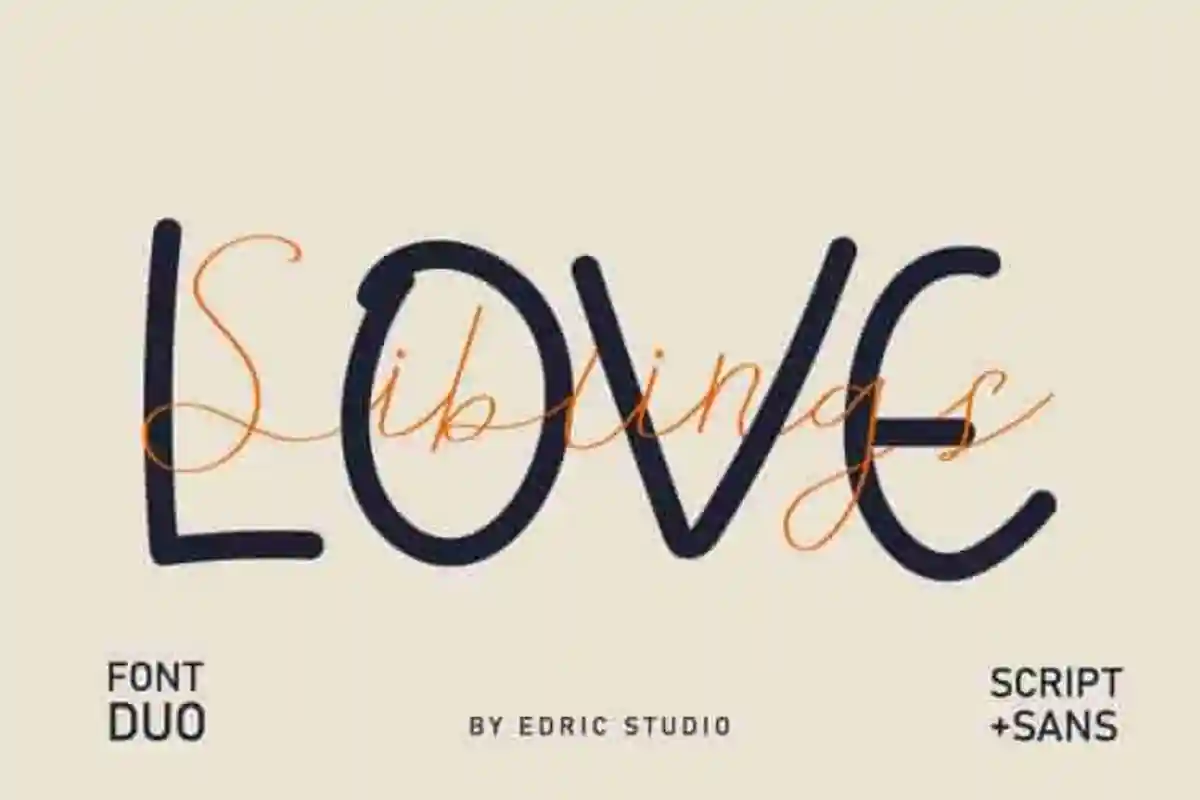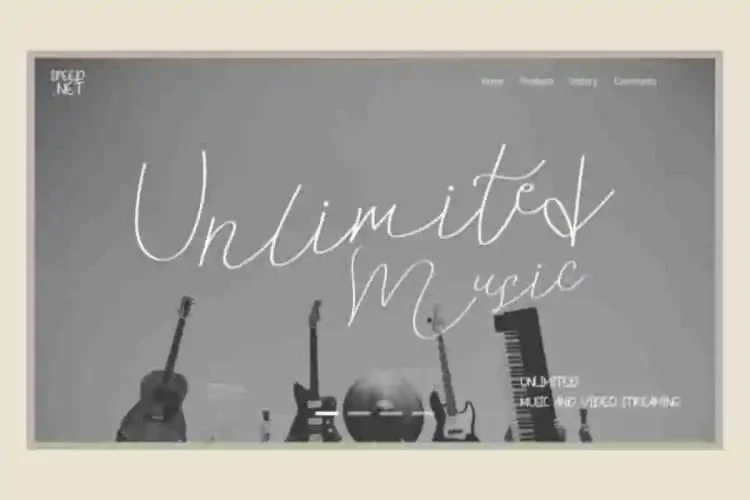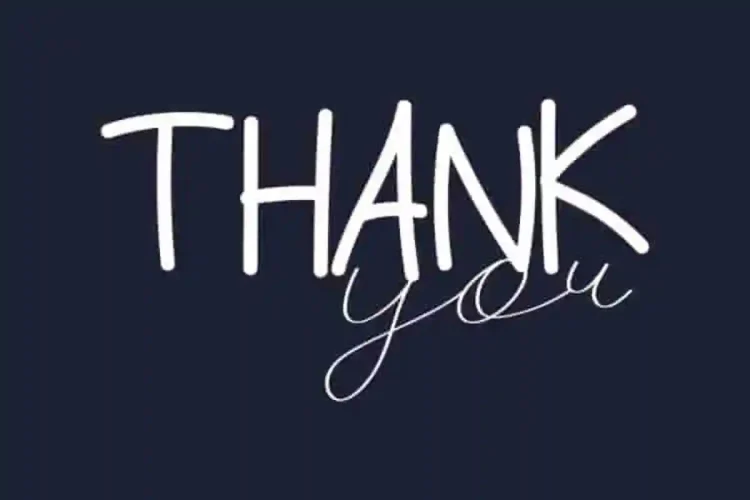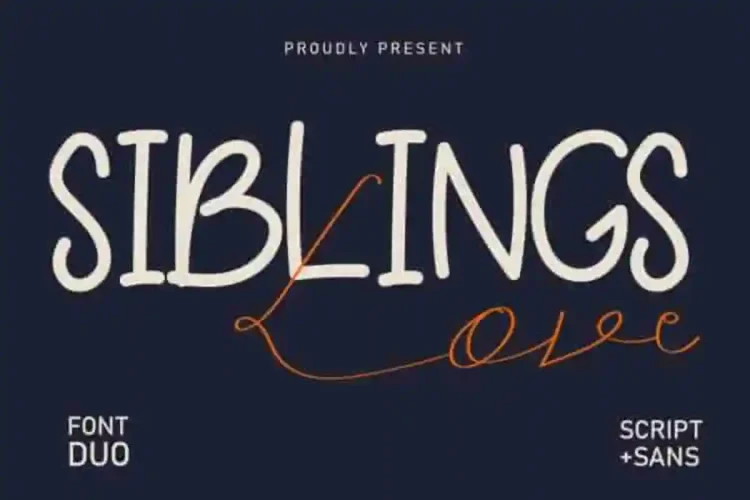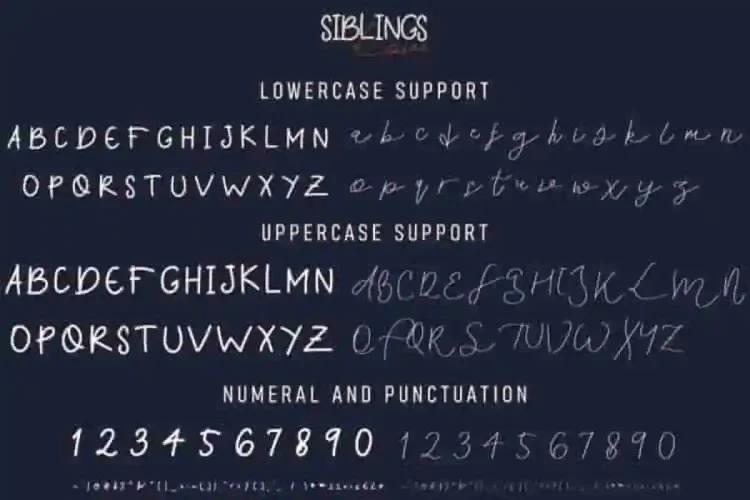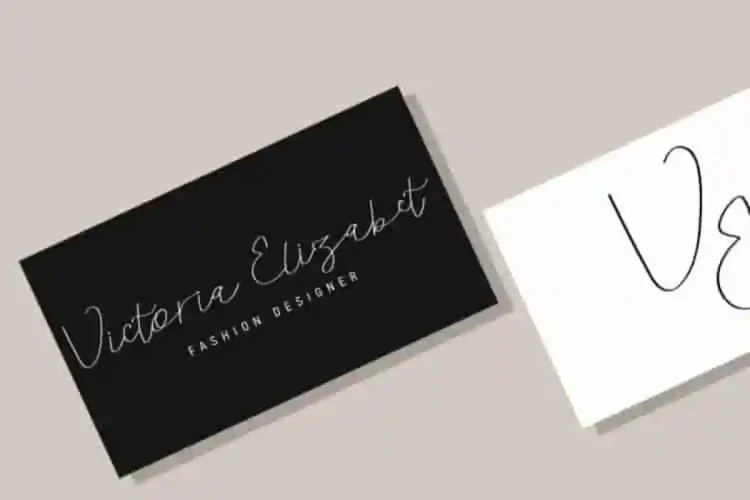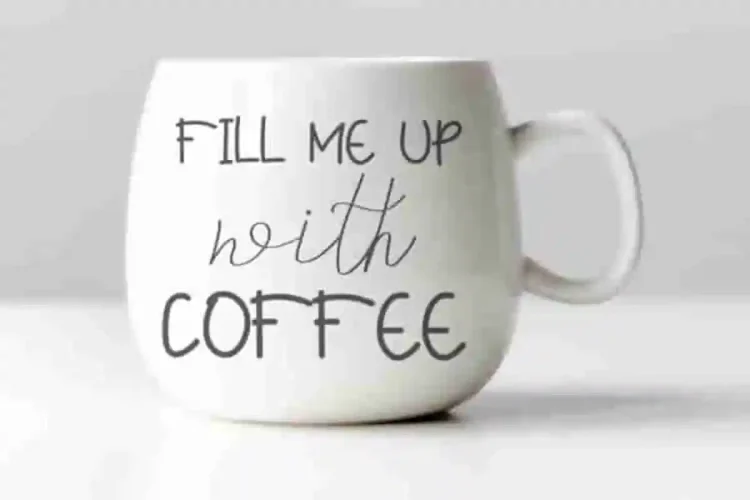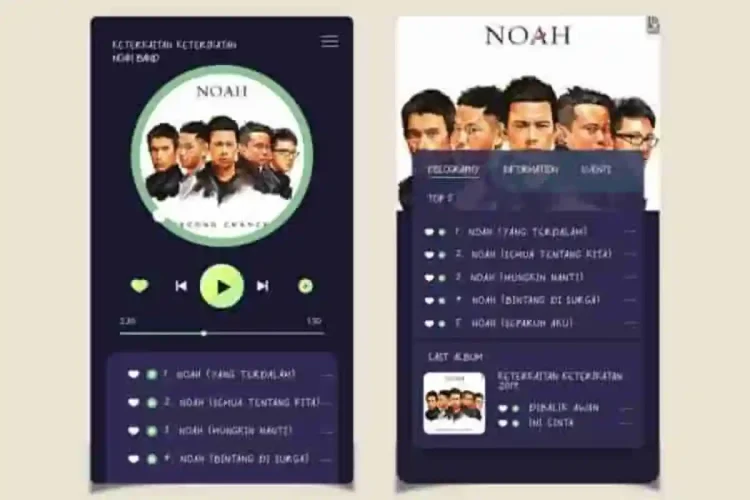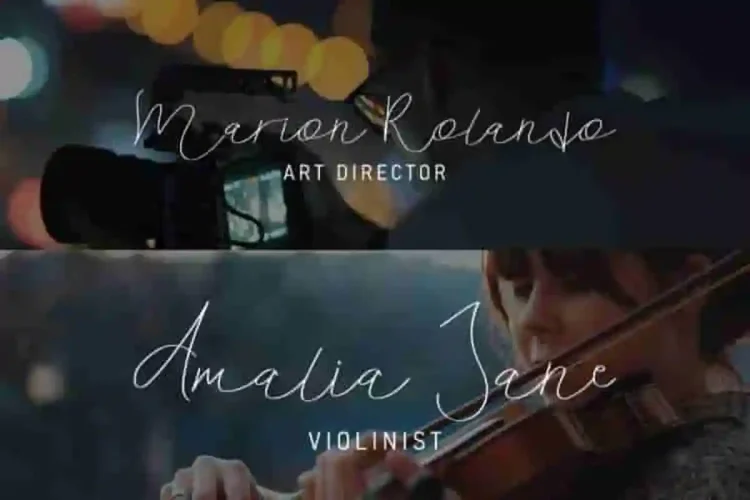
Siblings Love Calligraphy Font Duo
This is the newest font from our lovely artists : Yasri and Sarah. This is a duo typeface,  handcrafted from our Studio. Situated here in Garut and Bandung, Indonesia. Made with love and passion. :)
Siblings Love Calligraphy Font Duo is an exclusive duo typeface with unique and elegant style. The typeface has a stunning characters set, perfectly kerned and spaced. The style character of this font is elegant, stylish, sophisticated and classic brush calligraphic style. It’s exclusive you wont find any where-else, the font like Siblings Love  Calligraphy Font Duo.
Siblings Love Calligraphy Font Duo will be great for any projects including : branding, logo, stationery, business card, signage, flyer, brochure etc. Almost all industries will be match for this typeface: wedding, events, real estate, architect, law firm, florist, gardening, makeup artist, travel, hotel, musician etc.